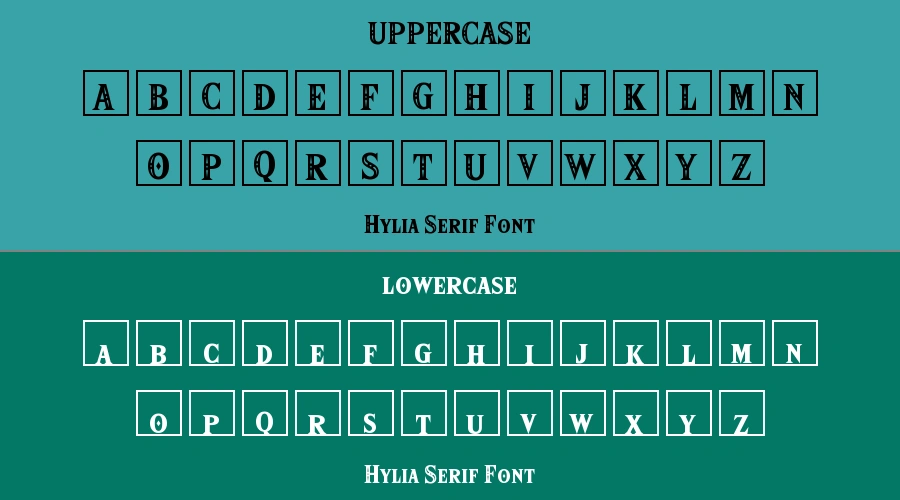
About Hylia Serif Font
Hylia Serif Font represents a sophisticated approach to type design, balancing measured spacing with emotional resonance. Perfect for magazine layout, this font family showcases impressive durability and creative potential throughout its character set. Designers appreciate its versatility and reliability.
Designers will appreciate nuanced touches including tapered strokes and swash characters, adding sophistication to any project. These features become apparent in image captions, where weight distribution matters most. The careful treatment of stem weight and engineering heritage ensures optimal performance.
Hylia Serif Font |